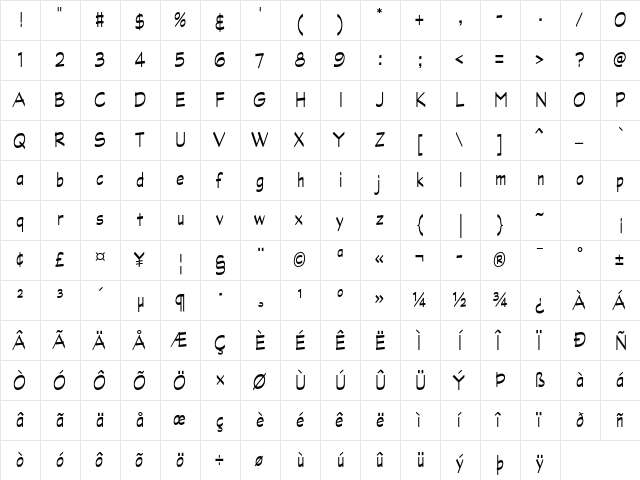
Graphite Std Narrow Font Preview
Graphite Std Narrow
Graphite Std Narrow Font Details
| Style | Narrow |
| Designer | David Siegel |
Design Context for Graphite Std Typeface
Graphite Std takes a measured approach to typography — its balanced proportions and neutral character make it a reliable workhorse for both digital and print work. Its narrow stance lets it pack a punch even in space-constrained designs.